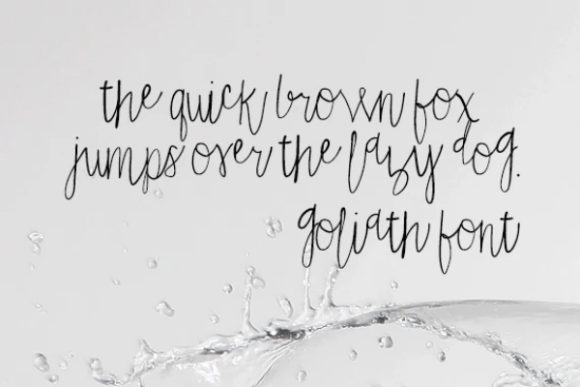
Goliath Font: Elevate Your Creative Projects with Elegance and Magic
In the world of typography, few fonts manage to capture the essence of elegance and whimsy as effortlessly as the Goliath Font. This magical handwritten font is meticulously crafted to bring a touch of sophistication and charm to any creative project. Whether you’re a designer looking to elevate your Instagram feed or a crafter seeking the perfect calligraphy script for your DIY endeavors, Goliath Font is poised to transform your ideas into true pieces of art.
The Essence of Goliath Font
Goliath Font stands out with its unique blend of elegance and playfulness. Its handwritten strokes exude a sense of personal touch, making it perfect for projects that require a human and approachable feel. The font’s design is characterized by its flowing lines, graceful curves, and a subtle sense of movement, which collectively contribute to its magical appeal.
One of the key advantages of the Goliath Font is its versatility. It’s incredibly adaptable, making it suitable for a wide range of applications. Here are a few ways you can use Goliath Font to enhance your creative projects:
- Instagram and Social Media: Elevate your social media posts and stories with stylish and eye-catching text. Goliath Font’s elegance and charm are sure to make your content stand out.
- DIY Projects: Add a personal touch to your DIY crafts, such as handmade cards, party invitations, and decor. The font’s calligraphy style lends itself beautifully to paper crafting and other handmade projects.
- Branding and Marketing: Use Goliath Font to create a distinctive brand identity. Its unique and stylish appearance can help your brand leave a lasting impression on your audience.
- Graphic Design: Incorporate Goliath Font into your graphic designs, such as brochures, posters, and flyers, to add a touch of elegance and sophistication.
Why Choose Goliath Font?
With so many fonts available, what makes Goliath Font a standout choice? Here are a few reasons why designers and crafters are gravitating towards this magical font:
- Elegance: Goliath Font brings an unparalleled level of elegance to any project. Its sophisticated appearance is sure to elevate your designs.
- Readability: Despite its elegant and cursive nature, Goliath Font remains highly readable, making it suitable for both headings and body text.
- Uniqueness: In a sea of generic fonts, Goliath Font offers a unique and distinctive look that can help your projects stand out.
How to Get the Most Out of Goliath Font
To truly leverage the potential of Goliath Font, consider the following tips:
- Experiment with Sizes and Colors: Play around with different sizes and colors to see how Goliath Font can be adapted to fit your project’s aesthetic.
- Combine with Other Fonts: Don’t be afraid to pair Goliath Font with other fonts to create a unique and visually appealing contrast.
- Pay Attention to Spacing: Adjust the spacing between letters and lines to enhance the flow and readability of your text.
Goliath Font is more than just a font; it’s a tool that can transform your creative projects into stunning works of art. Its magical handwritten style, combined with its elegance and versatility, makes it an invaluable asset for designers and crafters alike. Whether you’re looking to enhance your social media presence, create beautiful DIY projects, or develop a unique brand identity, Goliath Font is sure to exceed your expectations. So, why settle for ordinary when you can create something truly magical with Goliath Font?